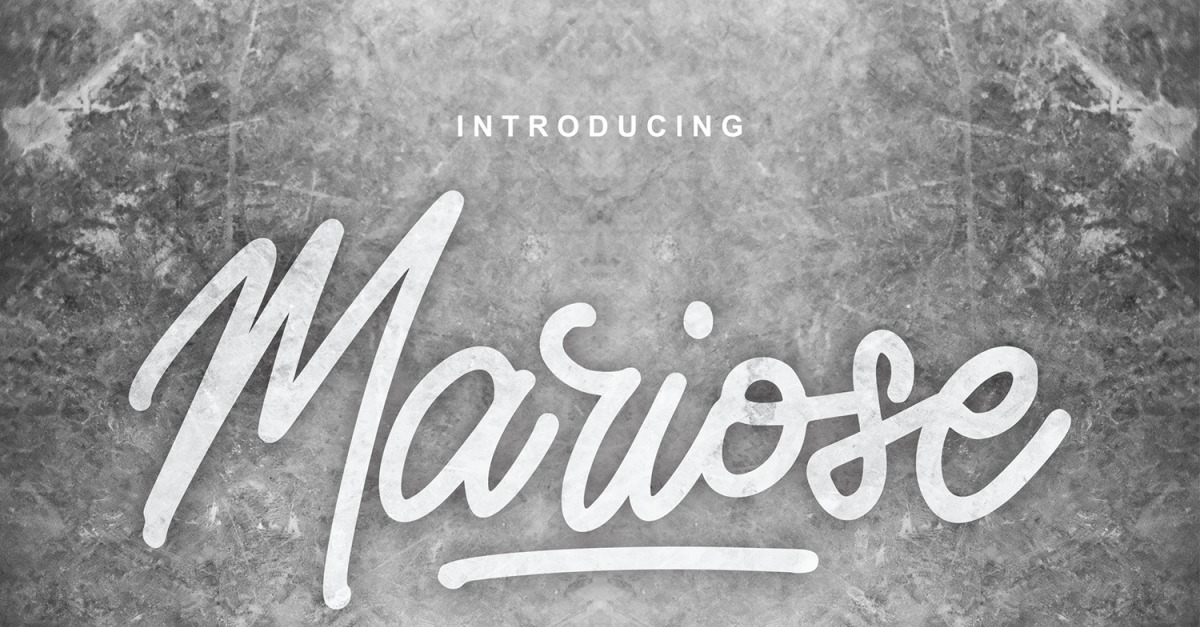
Mariose | Monotypeface Cursive Font
**Mariose | Monotypeface Script Font** with a calligraphy style, So beautiful on invitation like greeting cards, branding materials, business cards, quotes, posters, and more!